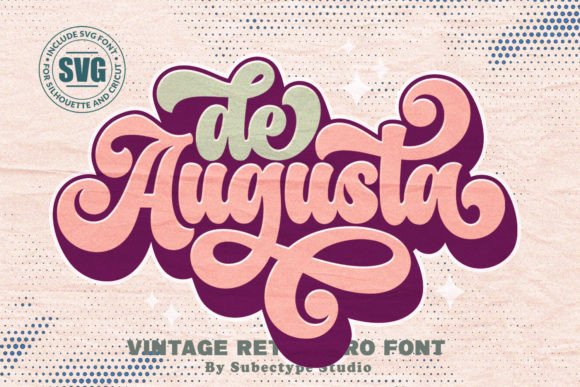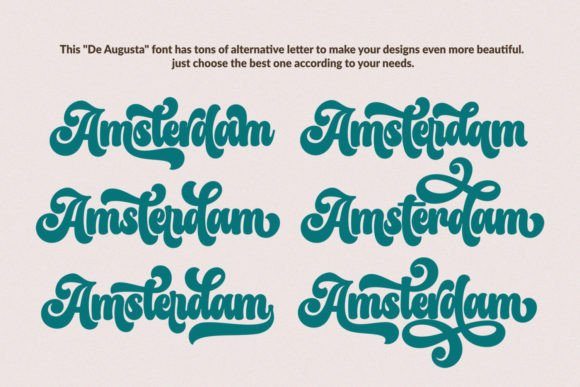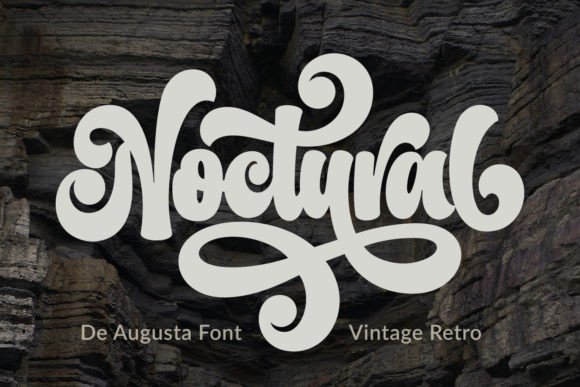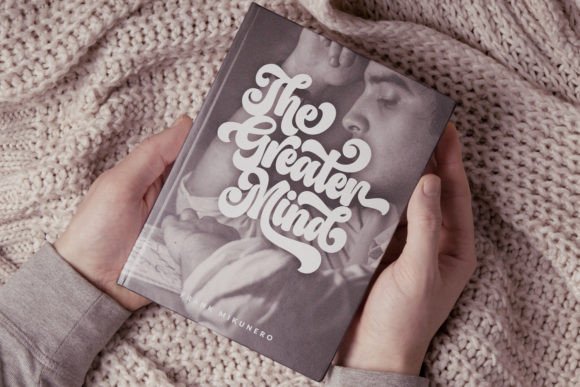
De Augusta Font: Groovy Vintage Typography for Retro Branding
About the De Augusta Font
Explore the possibilities with De Augusta Font, a font that offers both beauty and functionality. De Augusta is a Vintage retro font inspired by retro typography and lettering in the 70s and 80s combined with a bold typography style.
This font is perfect for vintage and retro designs, badges, logos, t-shirts, posters, branding, packaging, signage, book covers, and so much more! This font is PUA encoded, which means you can access all of the glyphs and swashes with ease!
De Augusta’s bold, retro style is ideally suited for headlines, logos, and short-form text in branding materials, posters, and packaging. Its strong personality works well for projects conveying a sense of nostalgia or vintage appeal, particularly within the fashion, music, or entertainment industries. However, its condensed letterforms and high contrast make it less suitable for body text or UI elements where legibility over extended lengths is crucial.
Pairing De Augusta effectively requires considering its strong character. A clean sans-serif like Montserrat or a geometric sans-serif such as Futura would provide a contemporary counterpoint, enhancing readability in supporting text. For a more vintage-inspired pairing, consider a classic serif like Garamond or Didot for a sophisticated contrast.
The font’s overall personality is confident and assertive, leaning towards a retro-modern aesthetic. This makes it unsuitable for projects requiring a delicate or minimalist feel, but perfectly at home in designs needing a strong visual presence.
De Augusta Font Usage Examples
De Augusta Font Example